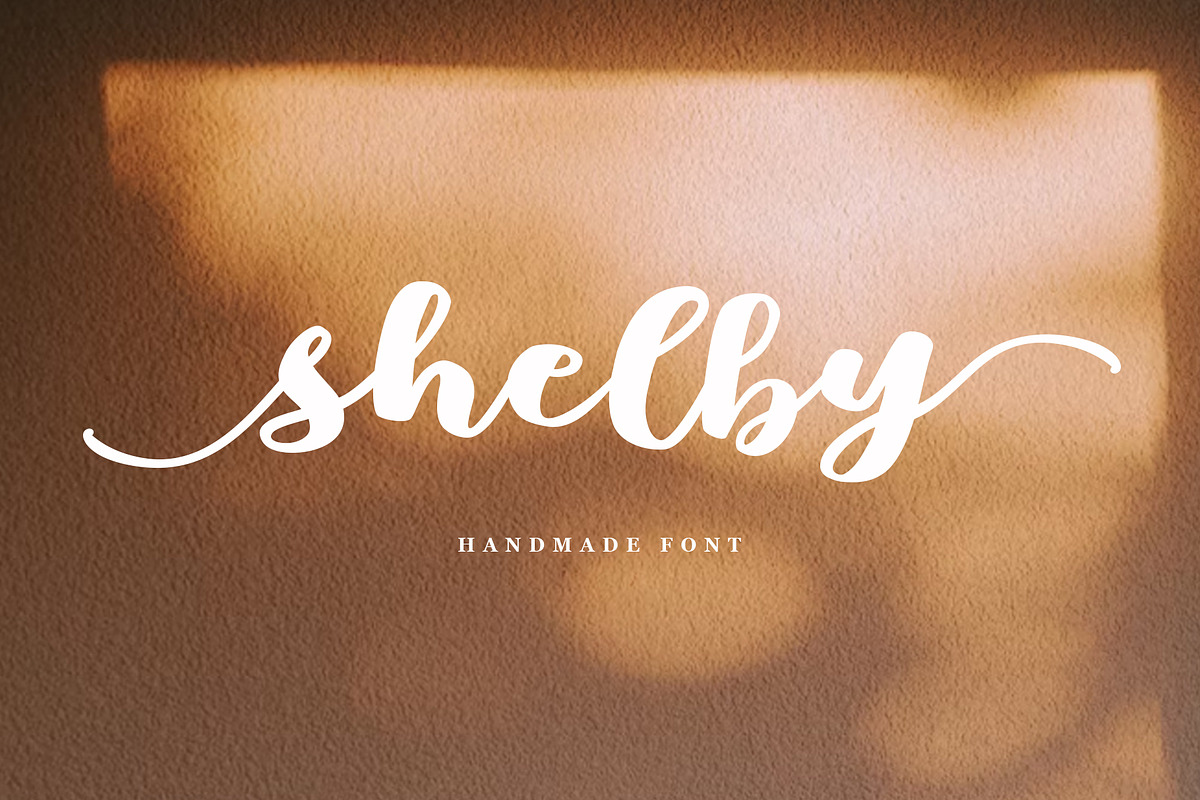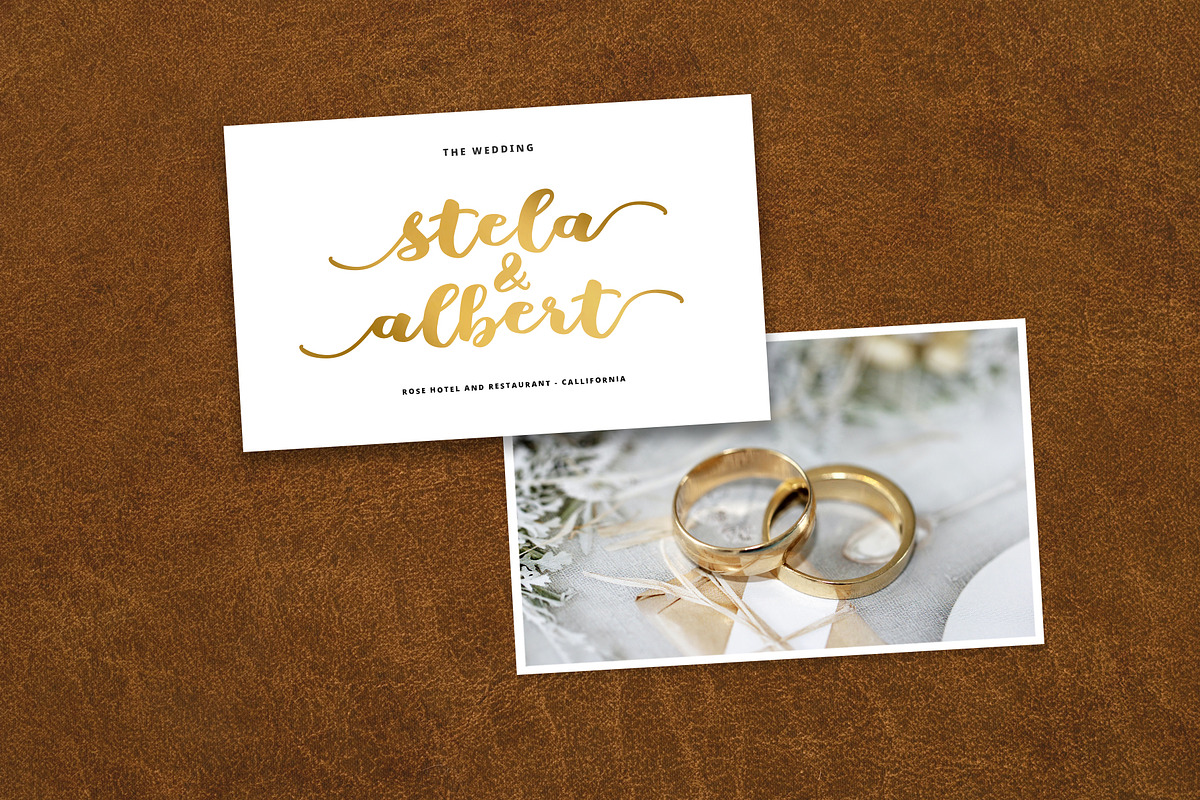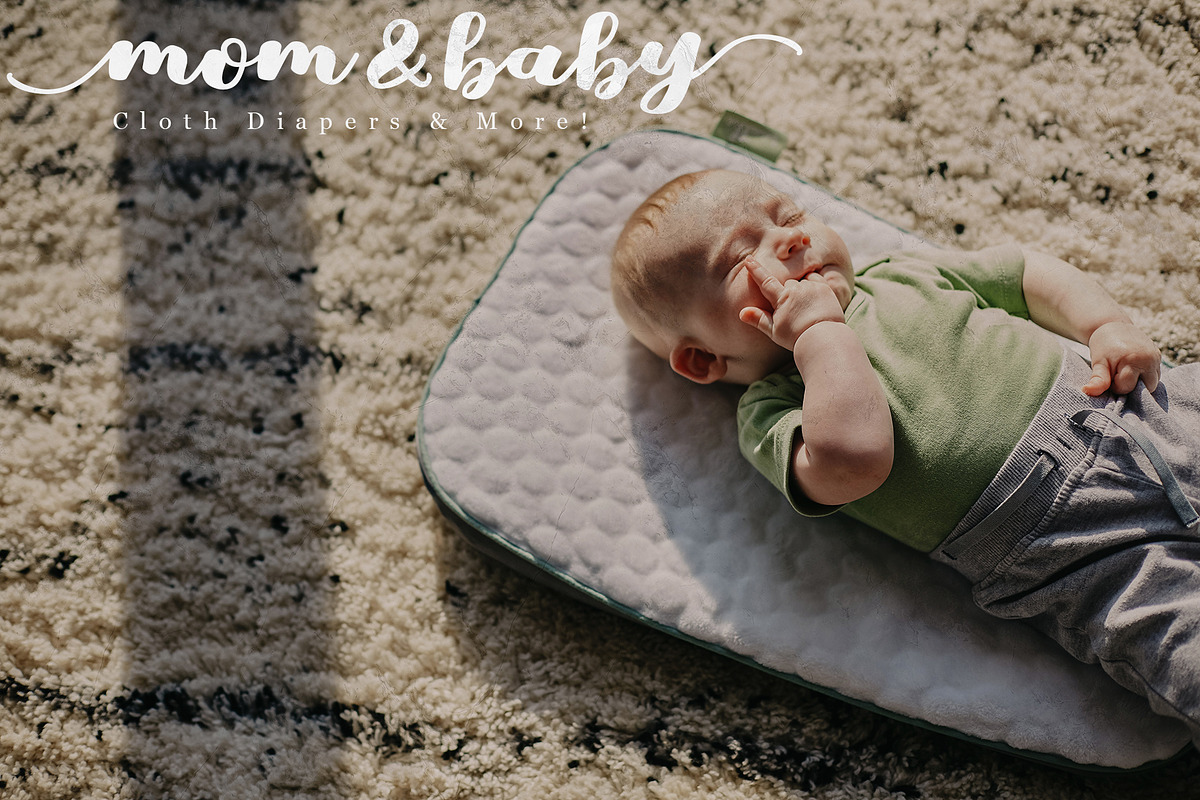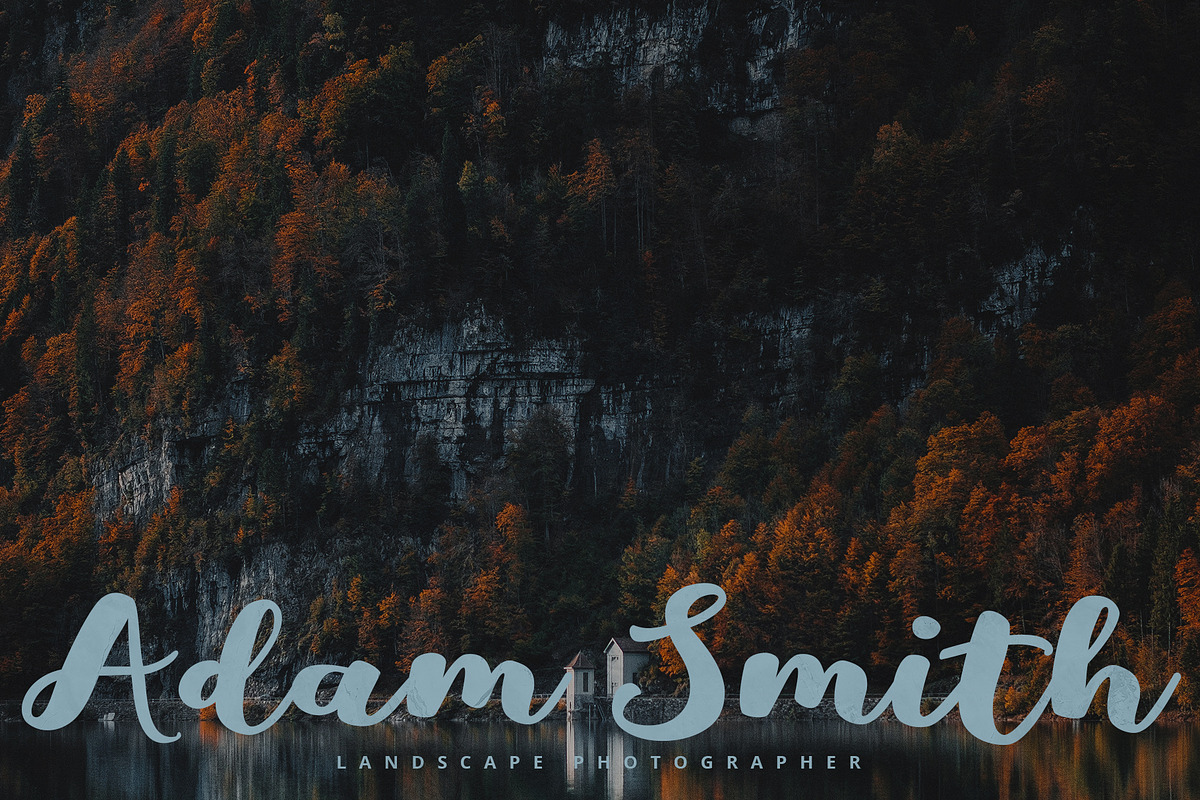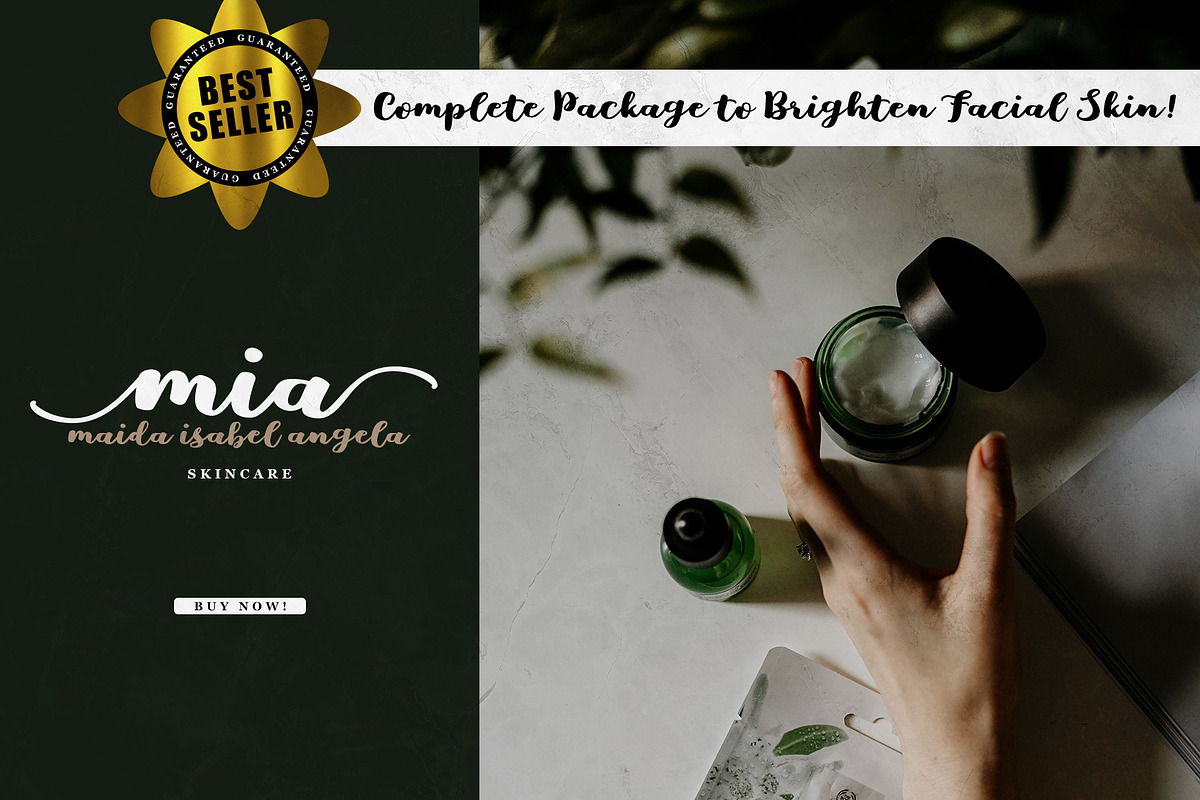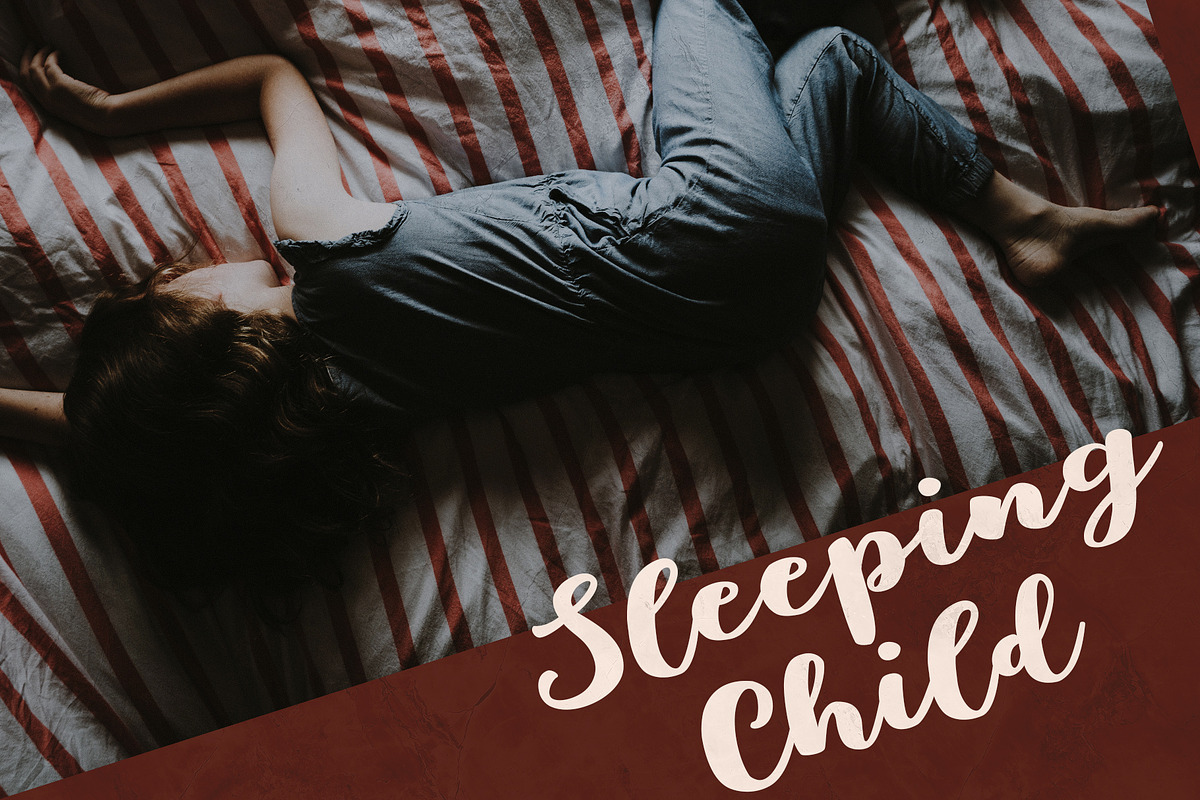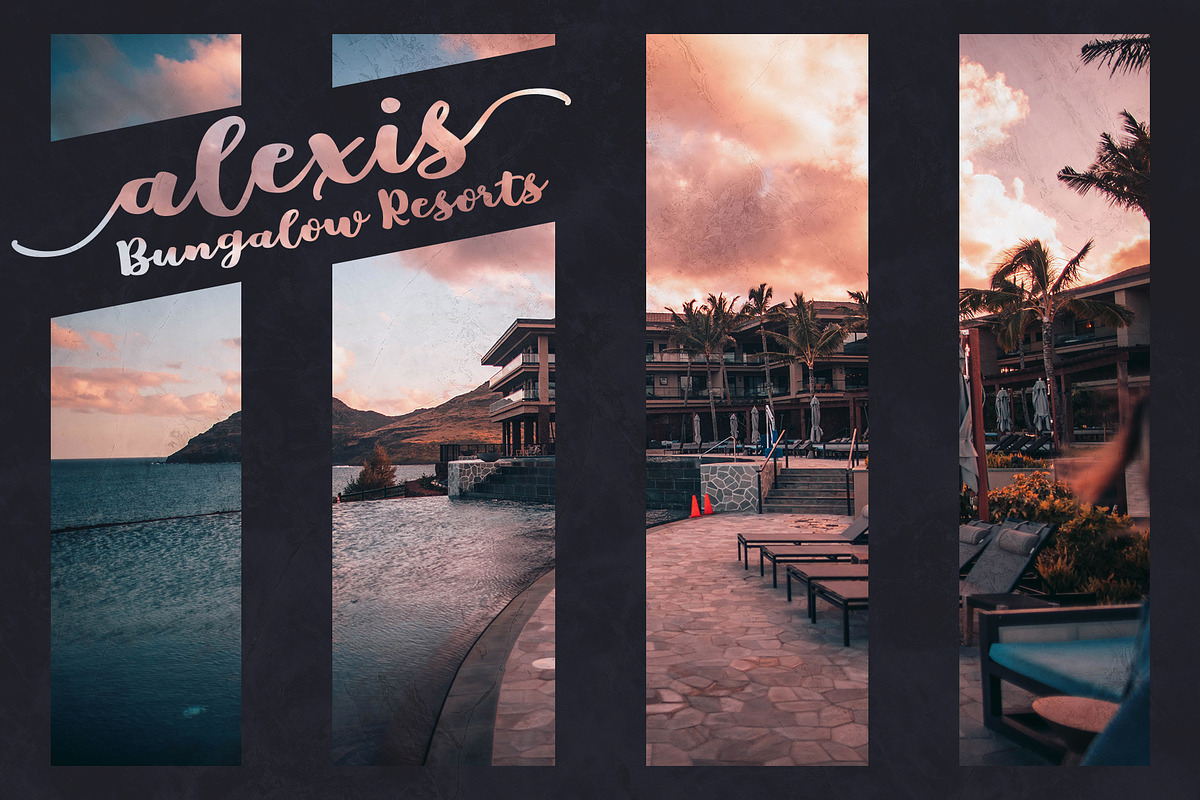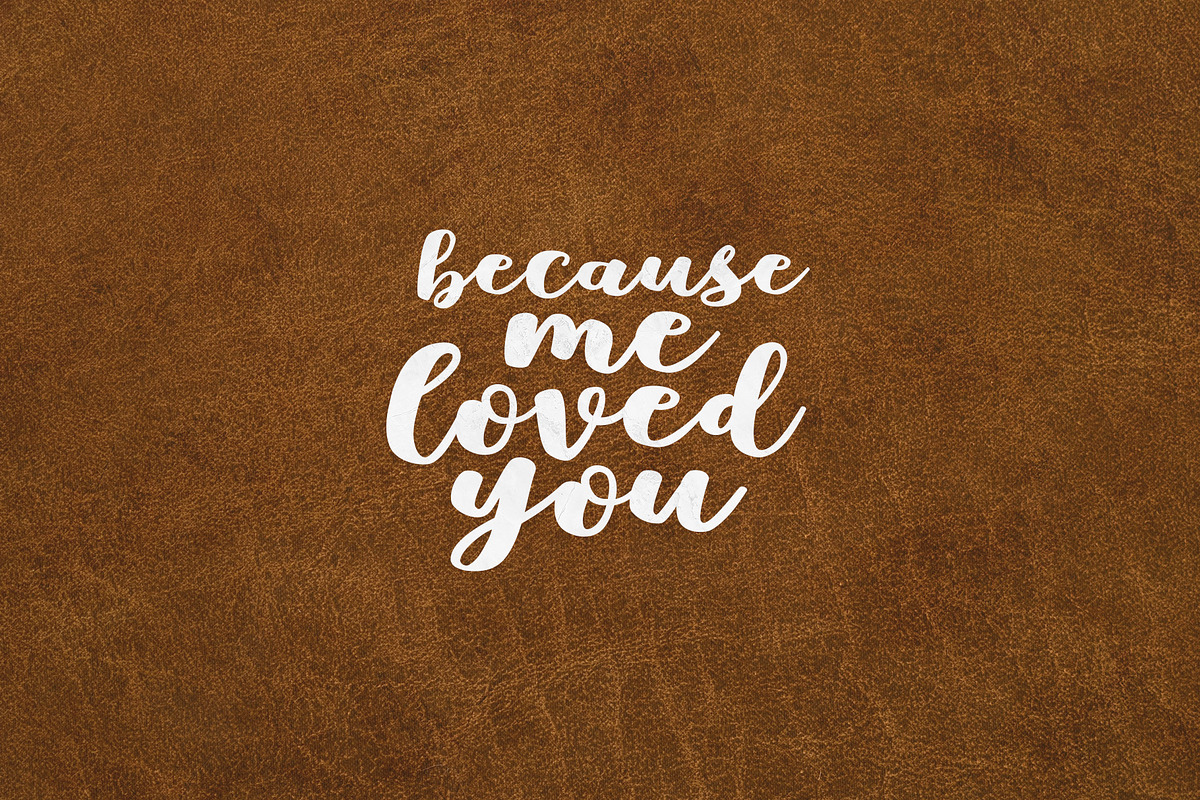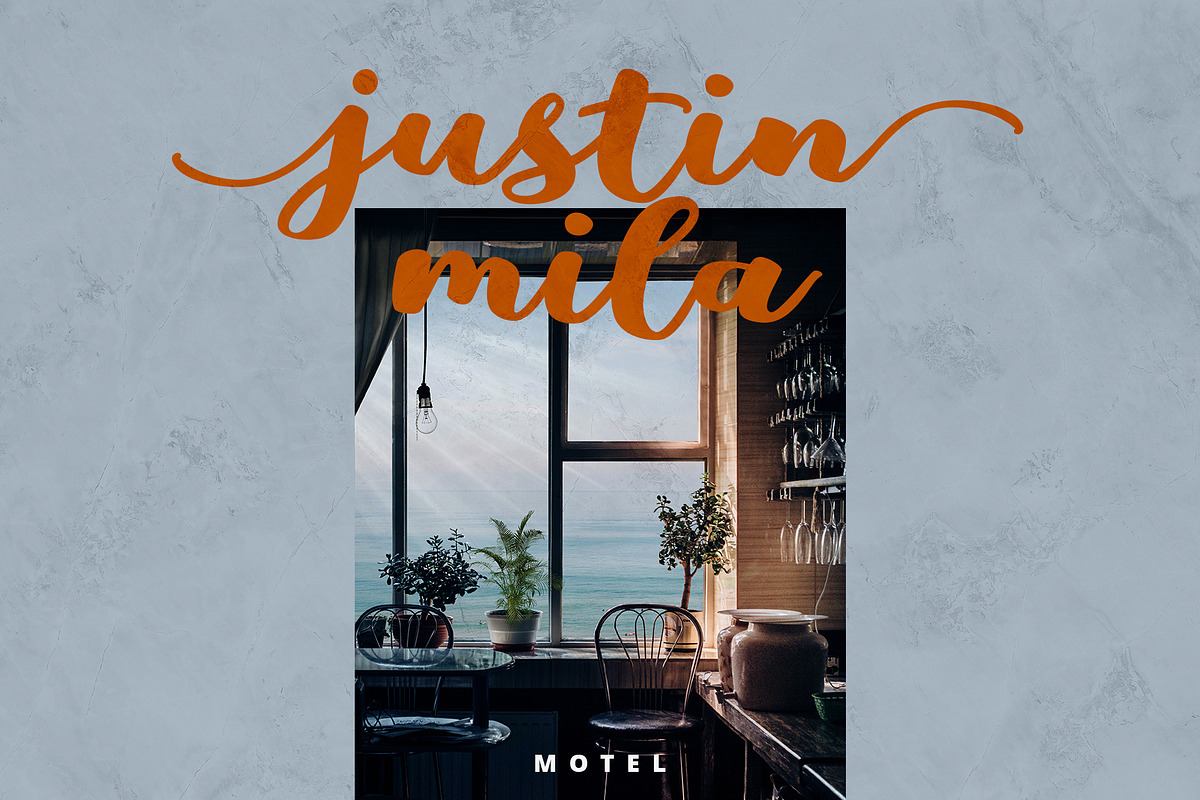
Shelby Script
Shelby a new handmade script with a style natural, sweet and simple. Made with great care to provide the natural and modern elements. You can find some style when you use it, examples such as natural handwriting style, unique, simple, elegant, bold, etc. This font will be suitable in use for logo's, branding projects, homeware designs, product packaging, mugs, quotes, posters, shopping bags, logo's, t-shirts, book covers, name card, invitation cards, greeting cards, and all your other lovely projects.